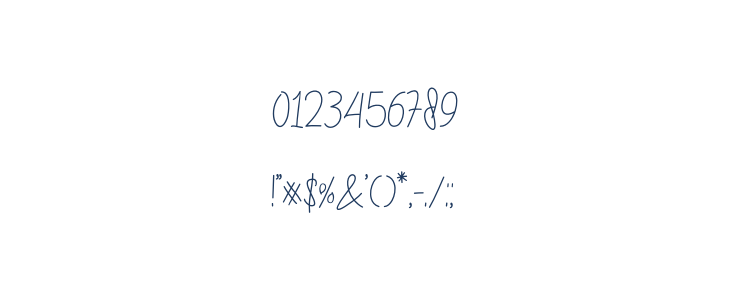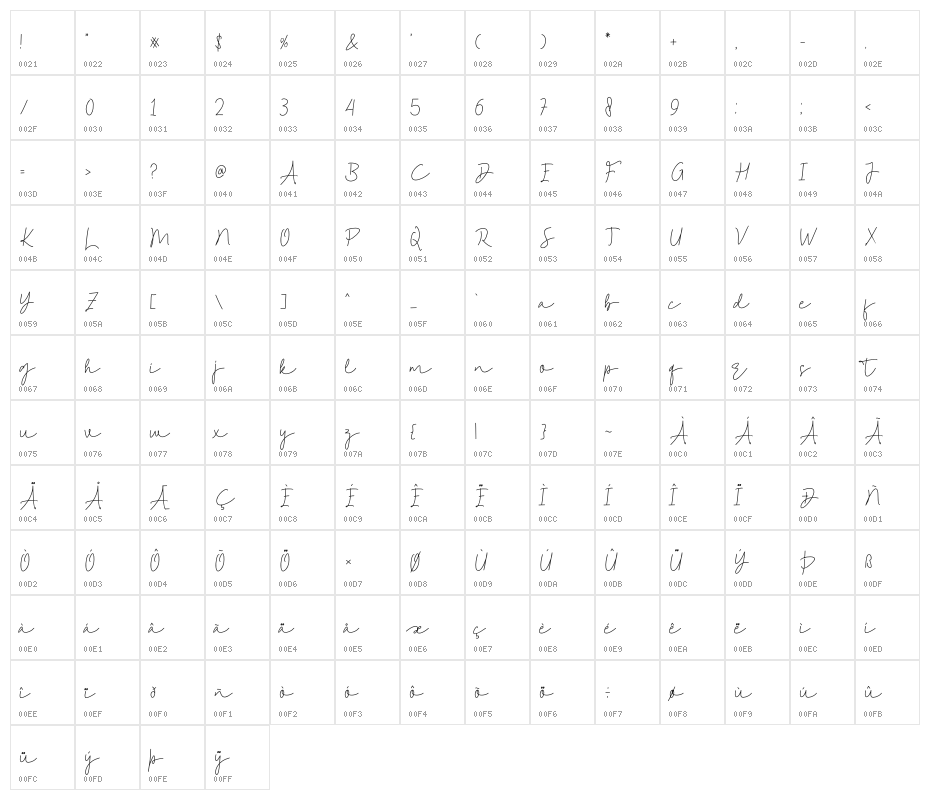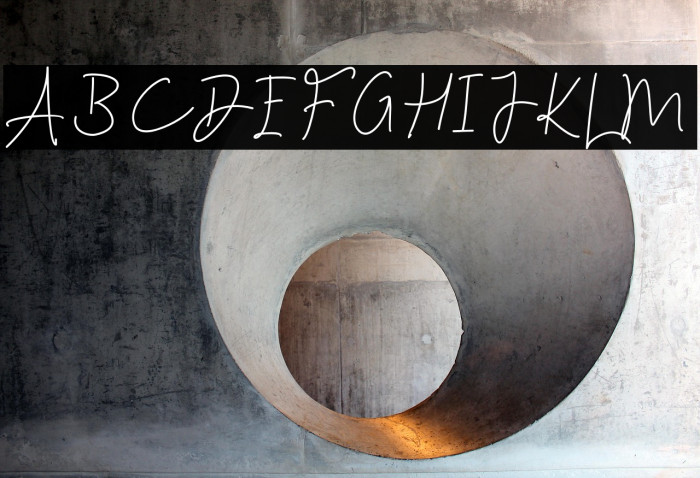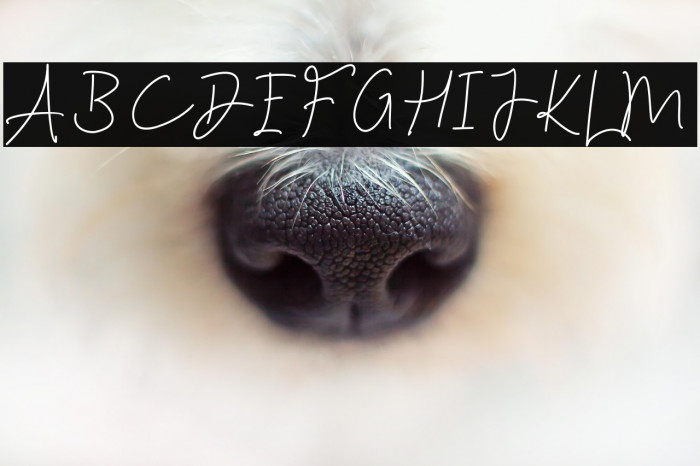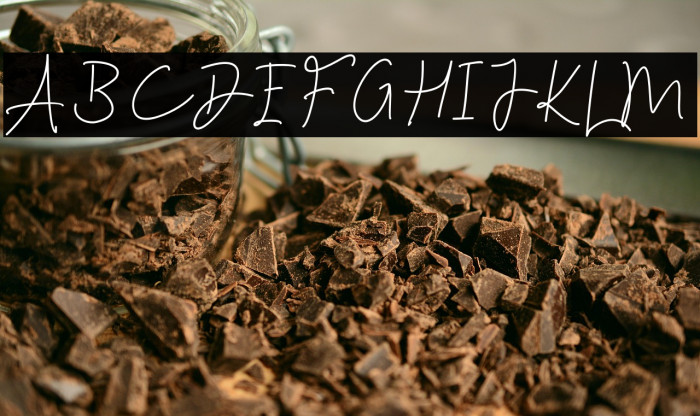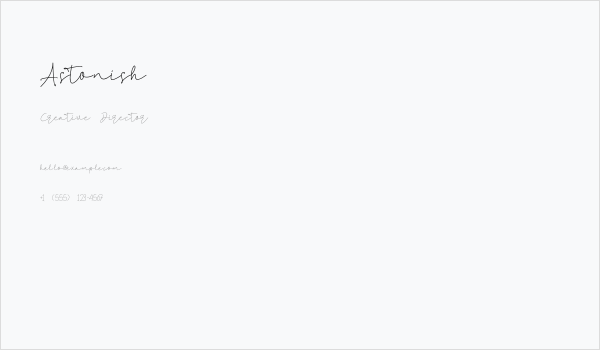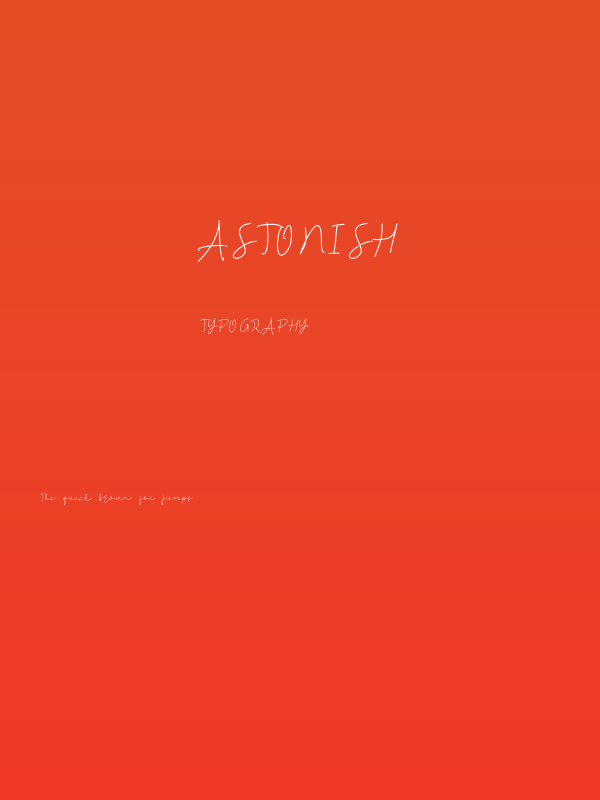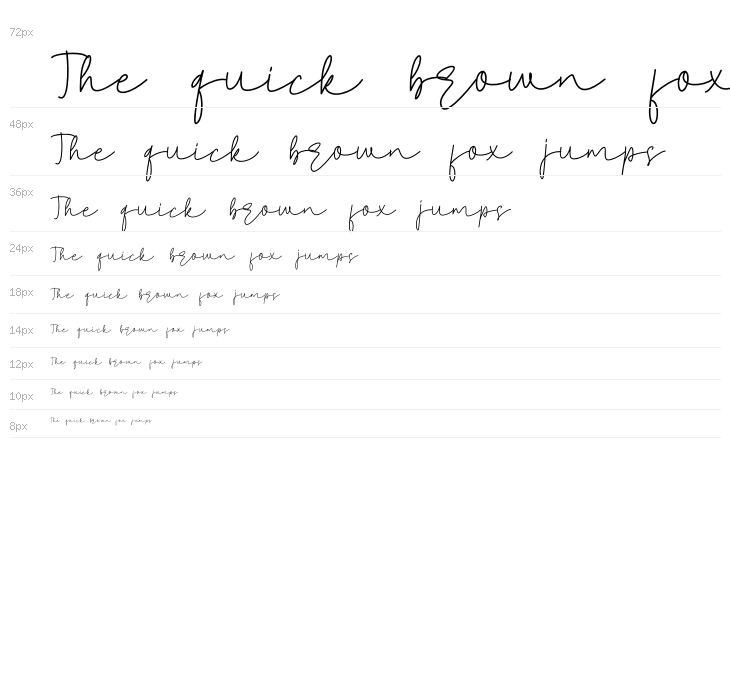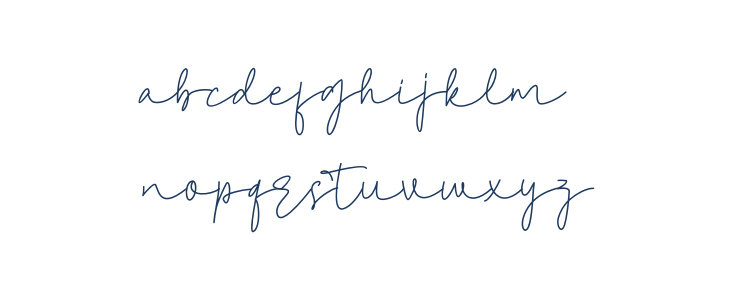
Astonish Font
Astonish Description
This font features a flowing, cursive style that mimics elegant handwriting. The characters are connected with smooth, sweeping lines, giving it a natural and organic feel. The uppercase letters are slightly more structured, while the lowercase letters exhibit a more relaxed and fluid form. The numerals maintain the same cursive style, ensuring consistency throughout. Special characters are also included, designed to blend seamlessly with the rest of the font. The overall appearance is both sophisticated and approachable, making it suitable for a variety of creative projects.
| Overall Style | Elegant, Handwritten |
| Proposed Projects | Ideal for wedding invitations, greeting cards, personal branding, and creative projects that require a personal touch. |